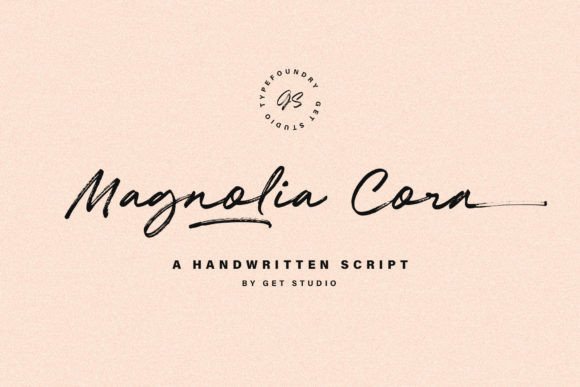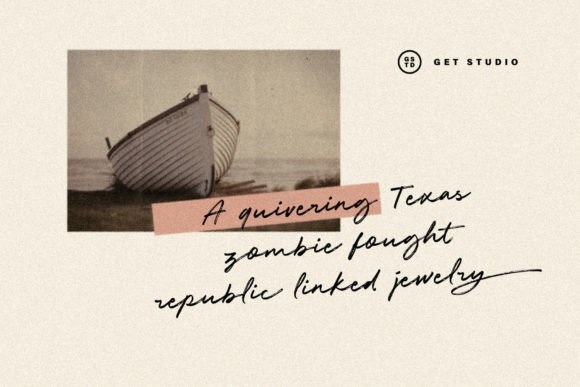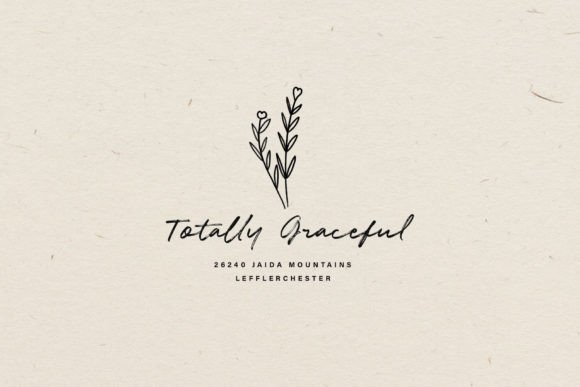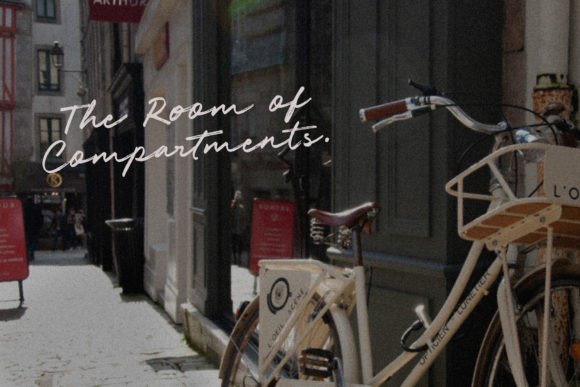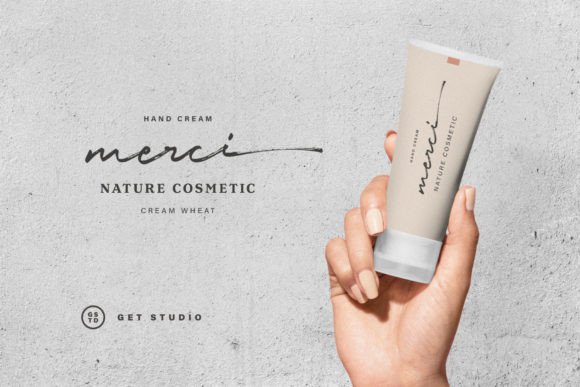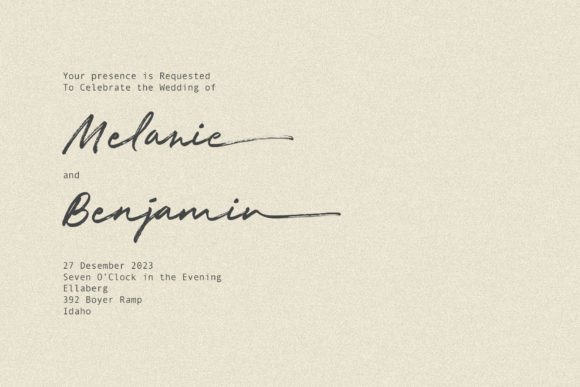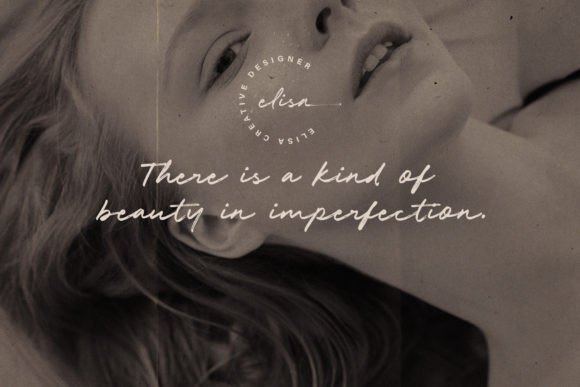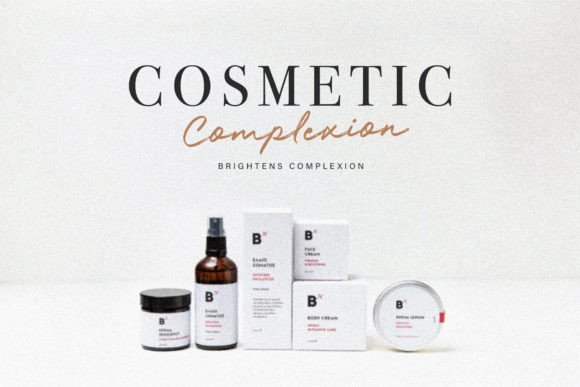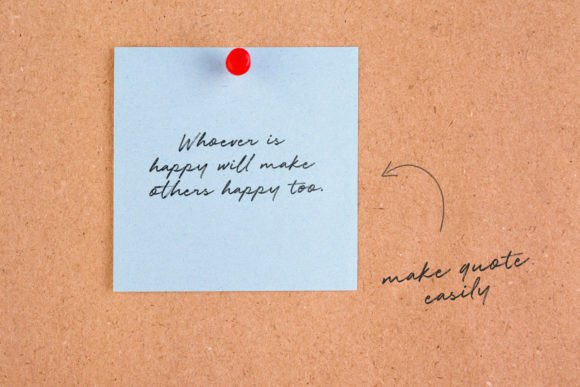
Magnolia Cora Font
Introducing Magnolia Cora, a handwritten font with a casual and strong character. It was crafted with real brush textures, giving you a custom-made feel for your design work.
Magnolia Cora can be used for various types of design needs such as branding materials, Invitation, social media templates, t-shirts, business cards, logos, promotional flyers, posters, and more.
This font is also suitable to be combined with san-serif to get an extraordinary result for your design projects.